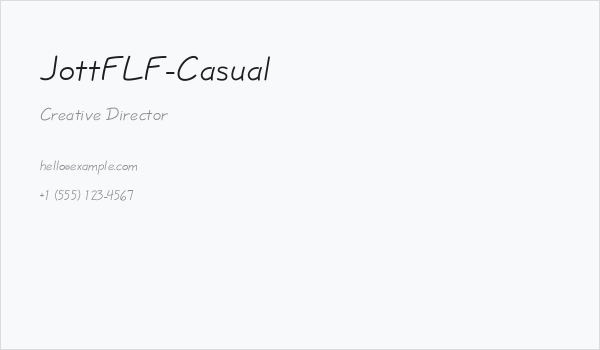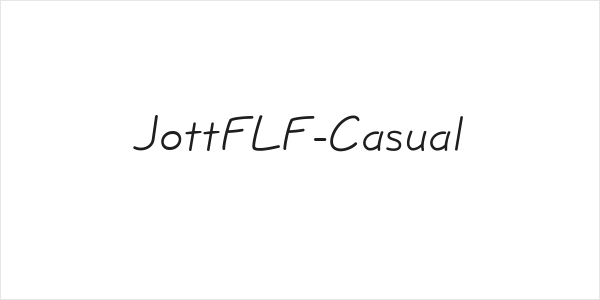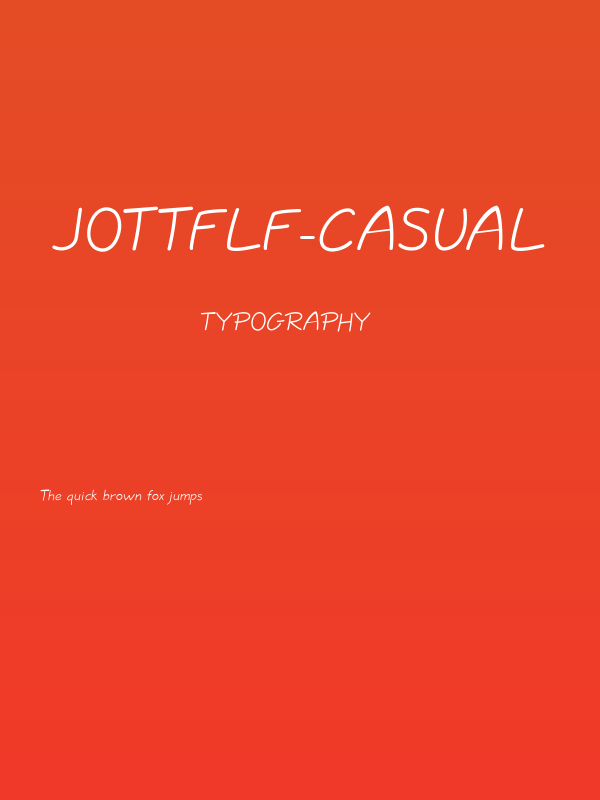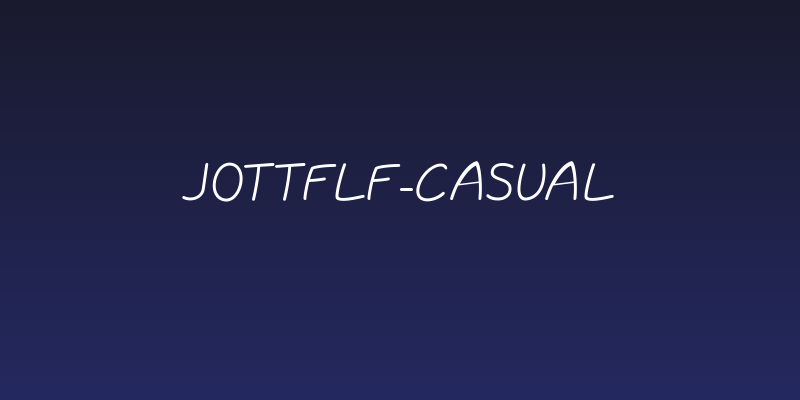
JottFLF-Casual Font
JottFLF-Casual Description
This font exhibits a casual, handwritten style with a smooth, flowing appearance. The characters are slightly slanted, giving it a relaxed and informal feel. Uppercase and lowercase letters maintain a consistent stroke width, contributing to its legibility. The numerals and special characters follow the same style, ensuring a cohesive look across all text elements. The font's playful and approachable nature makes it suitable for projects that require a personal touch.
| Use Case | Headlines, Logos, Informal text |
| Proposed Projects | Ideal for greeting cards, invitations, personal branding, and informal communications. |